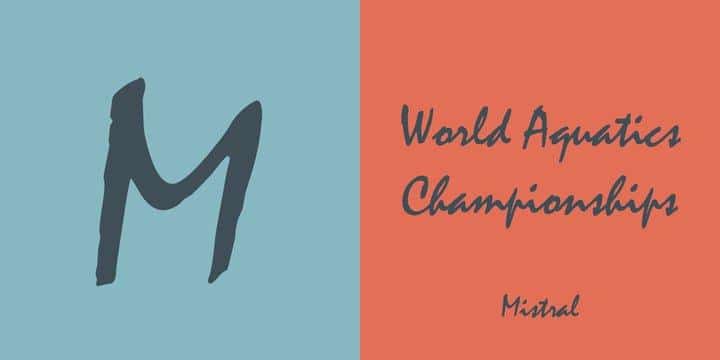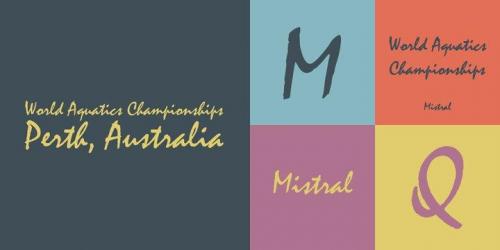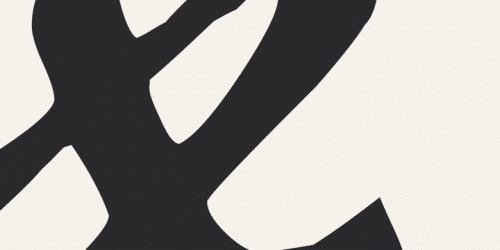
Mistral is a loose running script based directly on the handwriting of its designer, Roger Excoffon. His goal was to create a typeface with a true handwritten style, but in this case, the writing looks as though it were done with a brush or heavy felt tip.
- Designer: Roger Excoffon